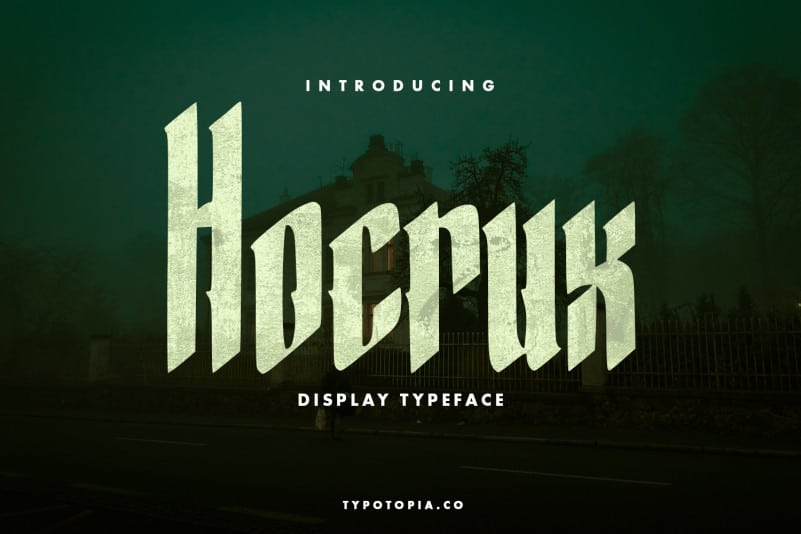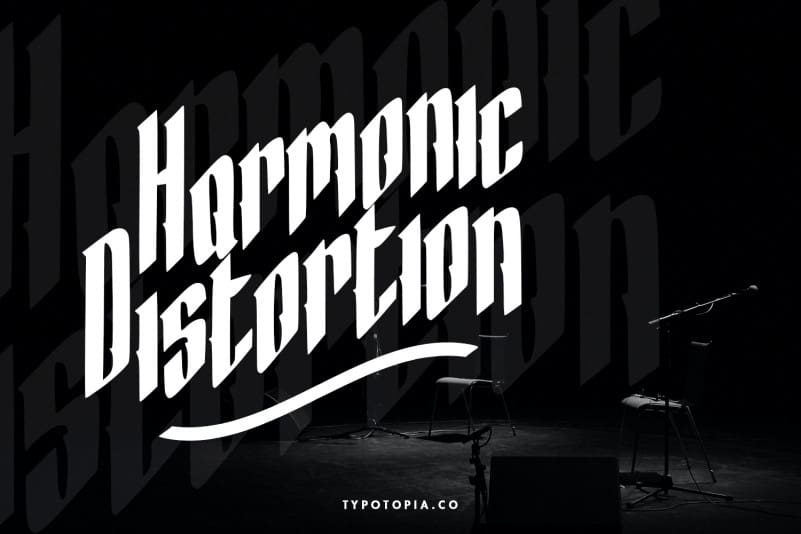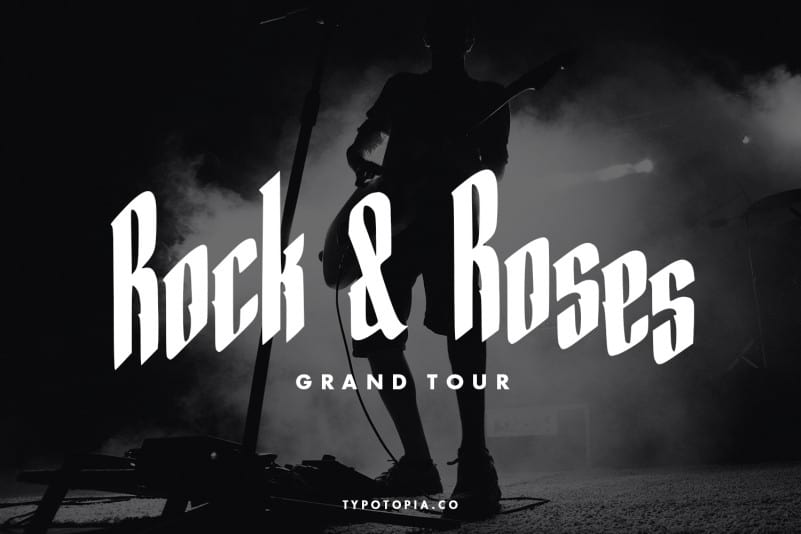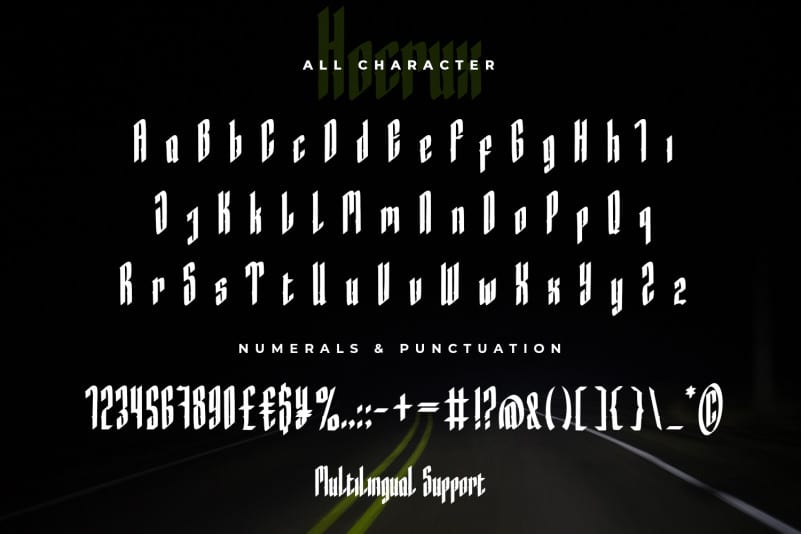
Hocrux Display Font
We’re Proudly Introduce to all of you, Hocrux Display Font. *This Font is the great choice for several purpose, it suitable for for headline, logotype, apparel, invitation, branding, packaging, advertising etc.